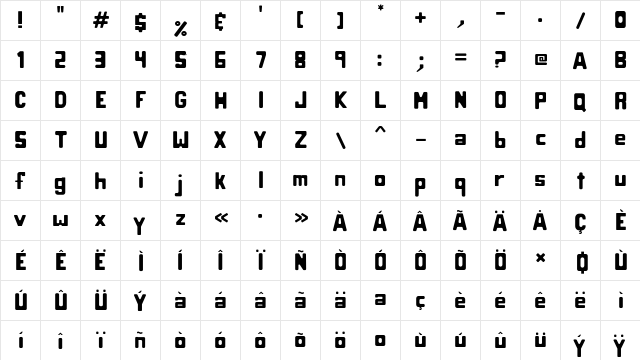
Spud Regular
| Designer | Ina Siddiqui |
Design Context for Spud Typeface
Spud is a composed and adaptable typeface that performs quietly and consistently across a wide range of design contexts.